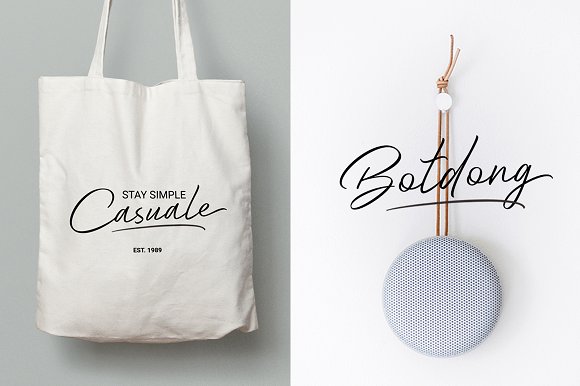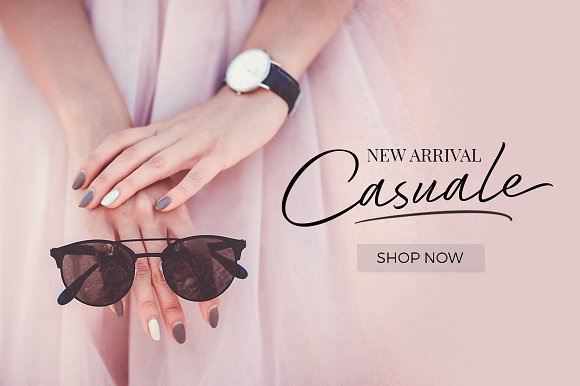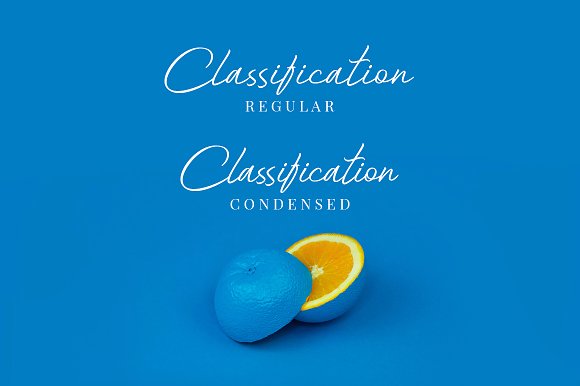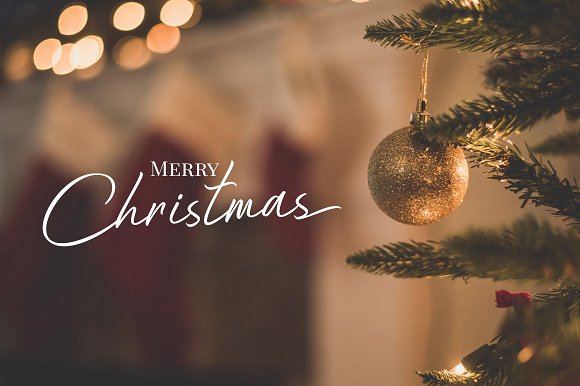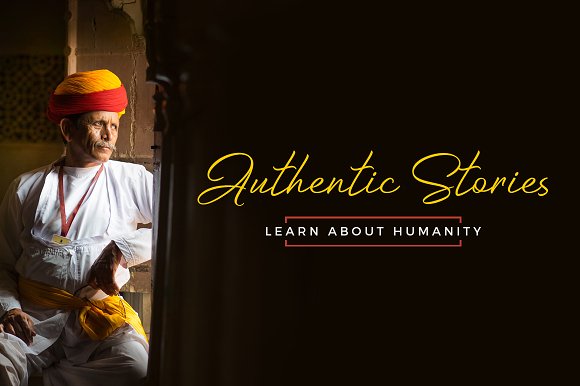
Kindentosca Font
Kindentosca is a handwritten typeface with a simple look and readability. Kindentosca consists of 2 fonts: Regular with the distance between letters slightly apart, Condensed with the distance between the letters a little close.
Kindentosca Comes with a set of characters that support different languages and is designed for a wide range of needs, you can use for watermarks on photography, quotes, branding, business cards and many other design projects.